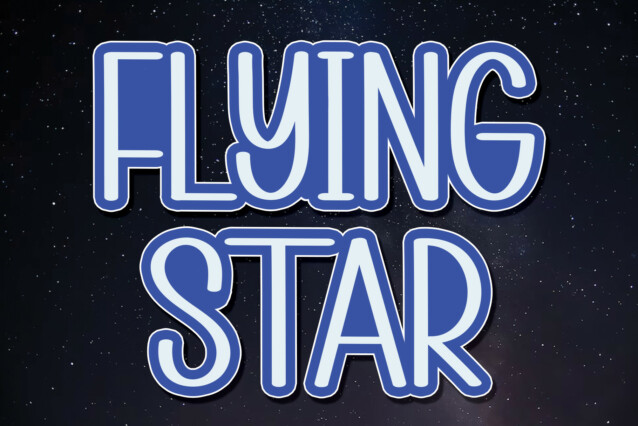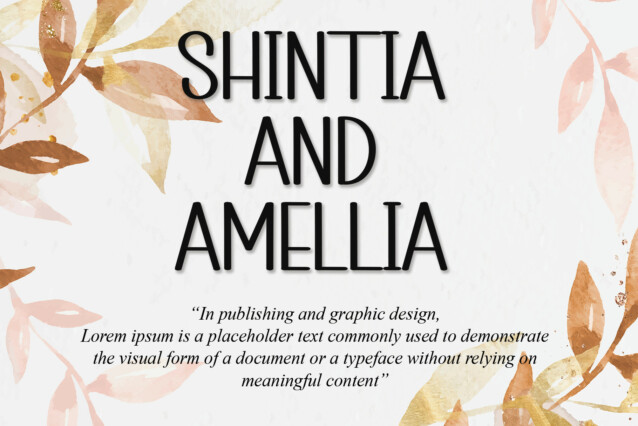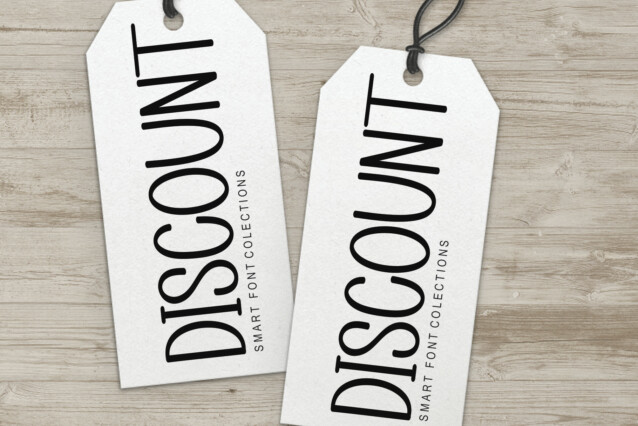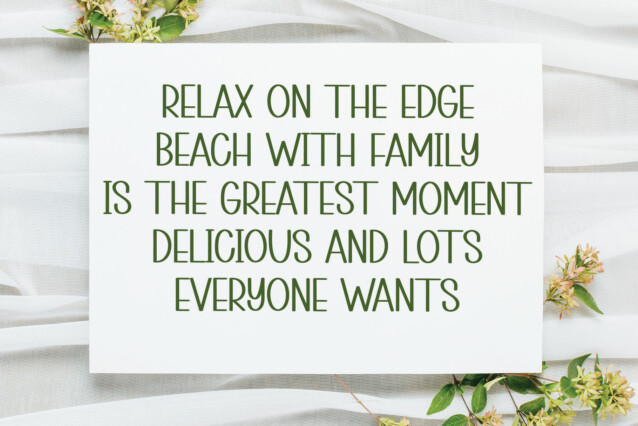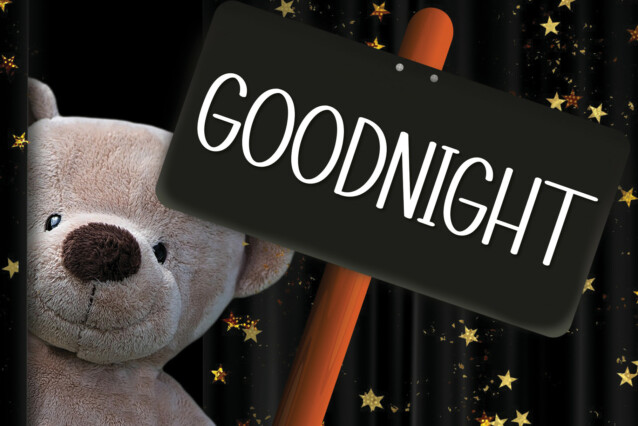
Flying Star Display Font
Flying Star Display Font is a cool and modern handwritten font. No matter the topic, this font will be an incredible asset to your fonts’ library, as it has the potential to elevate any creation.